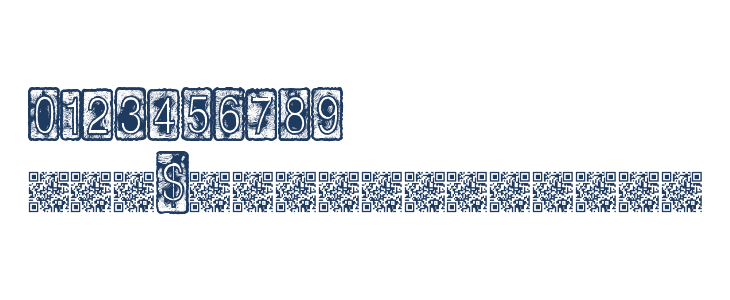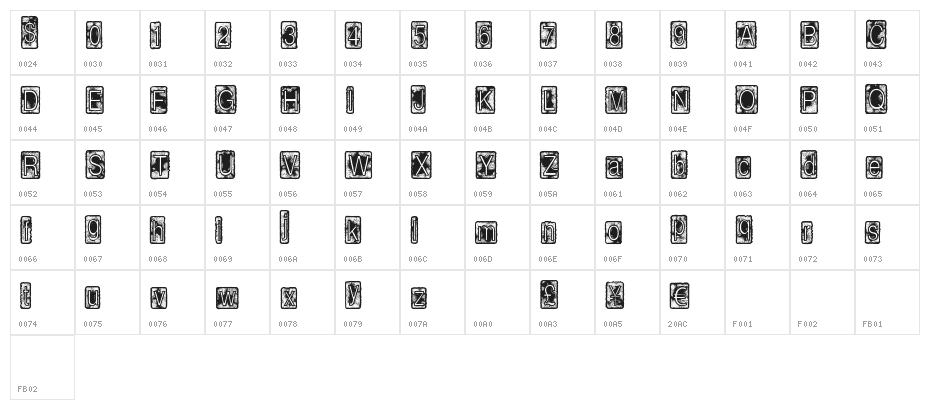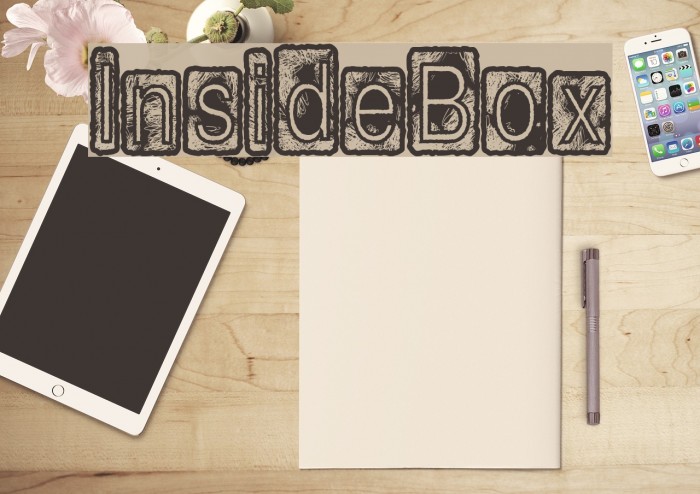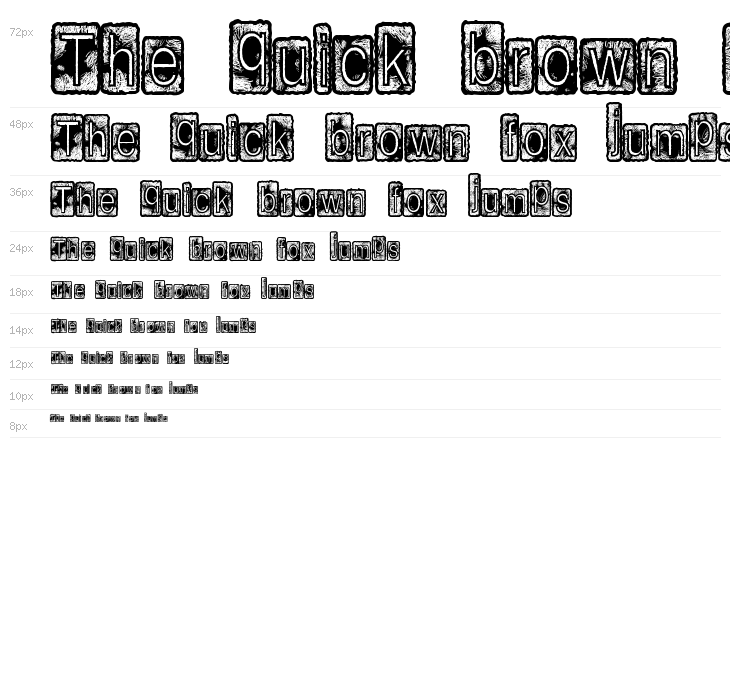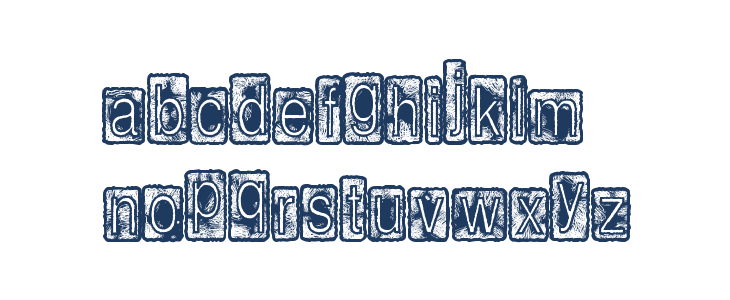
InsideBox Font
InsideBox Description
This font features a bold, distressed style with each character enclosed in a rough, textured box. The design gives a vintage, grunge-like appearance, making it stand out with its unique and artistic flair. The uppercase and lowercase letters, along with numbers and special characters, maintain a consistent boxed format, enhancing the overall cohesive look. The texture within each box adds depth and character, making it suitable for projects that require a strong visual impact. The font's distinct style is ideal for creative designs, posters, and branding that aim to convey a sense of ruggedness and individuality.
Overall StyleVintage
Proposed ProjectsIdeal for posters, album covers, branding, and any design requiring a bold, vintage aesthetic.